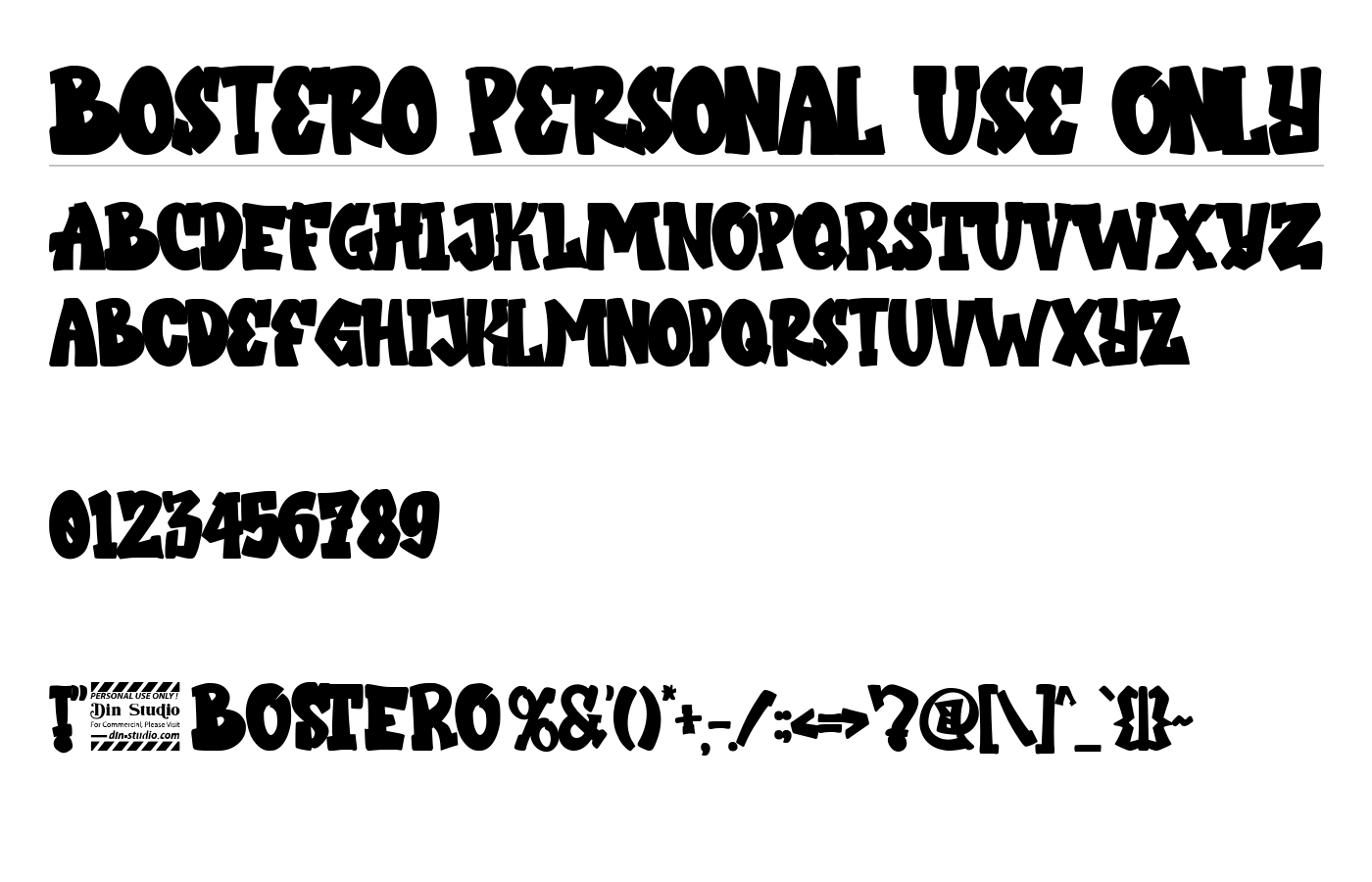
Bostero Personal Use Only is a bold, playful sans serif font with a strong, chunky presence and quirky, irregular letterforms that give it a fun, informal vibe. Its heavy weight and tight spacing make it ideal for eye-catching headlines, posters, or branding that wants to convey energy and creativity. This font works best in casual, youthful designs where personality and bold impact are key.
Bostero Personal Use Only Font
About Bostero Personal Use Only Font